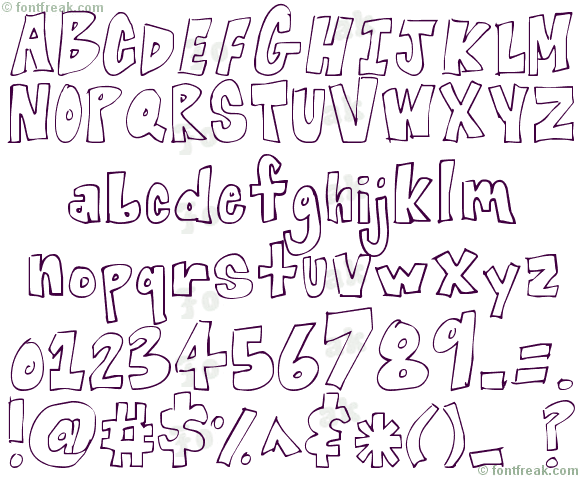
Blocked Off
About Blocked Off
The Blocked Off font by Kimberly Geswein is a unique display typeface that captures a playful yet bold character. As a decorative font, its whimsical design features rounded edges and a hand-drawn quality, giving it an inviting and casual feel. The stroke weight is consistent, with a slightly irregular line quality that adds to its charm. The spacing between letters is generous, enhancing readability while maintaining a sense of fun.
This font is ideal for various creative applications, including children's book covers, playful branding for family-friendly businesses, and engaging promotional materials. It can also shine in event invitations, particularly for casual gatherings or birthday parties, where a light-hearted tone is desired. Graphic designers and content creators will appreciate its versatility in creating eye-catching visuals that stand out.
The target audience for the Blocked Off font includes graphic designers seeking a quirky typeface to bring a touch of personality to their projects, small business owners looking to establish a friendly brand image, and content creators who want to add an element of fun to their digital or print materials. Its approachable design resonates well with audiences of all ages, making it a perfect choice for a variety of contexts.
What sets the Blocked Off font apart is its distinctive blend of playfulness and clarity. It captures attention without overwhelming the viewer, making it a fantastic choice for any project that aims to convey joy and creativity. With a Blocked Off font free download available, it's never been easier to incorporate this lively typeface into your design toolkit. Embrace the opportunity to elevate your work with this delightful font that truly stands out.